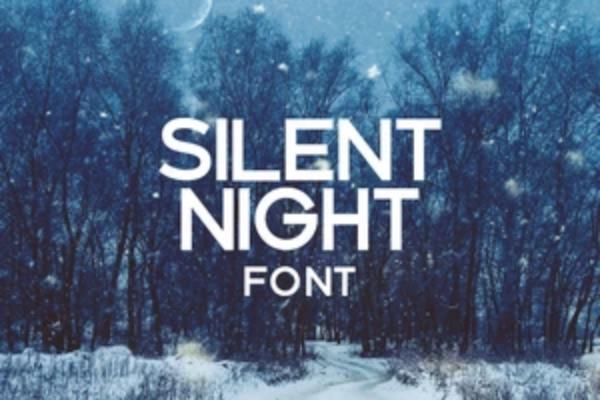
Silent Night Font Description
Silent Night is a bold display font, carefully handcrafted to become a true favorite. Its casual charm makes it appear wonderfully down-to-earth, readable and, ultimately, incredibly versatile. This font will look outstanding in any context, whether it’s being used on busy backgrounds or as a standalone headline!